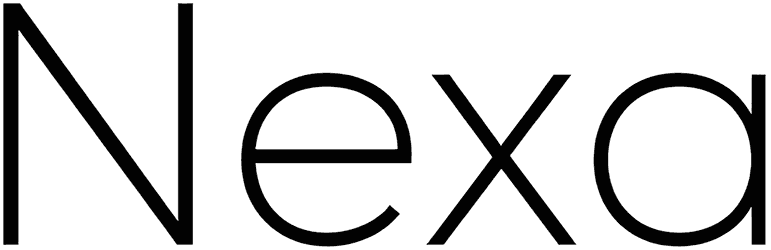
Nexa Font
What sets Nexa apart is its versatility, making it great for working on various severe and casual branding projects. Although not very delicate, this sans-serif font has a bold element in the form of different styles and…
Designed byFontfabric
What sets Nexa apart is its versatility, making it great for working on various severe and casual branding projects. Although not very delicate, this sans-serif font has a bold element in the form of different styles and weights, making it suitable for social media, greeting cards, posters, and advertisements.